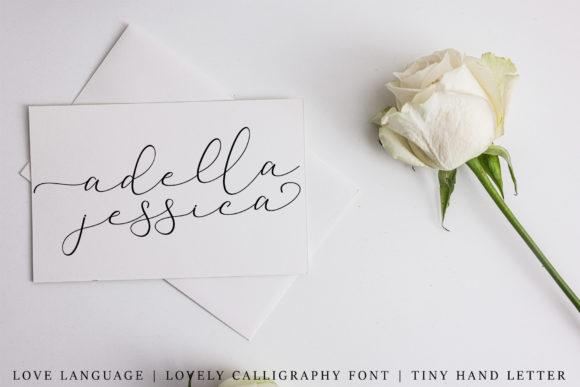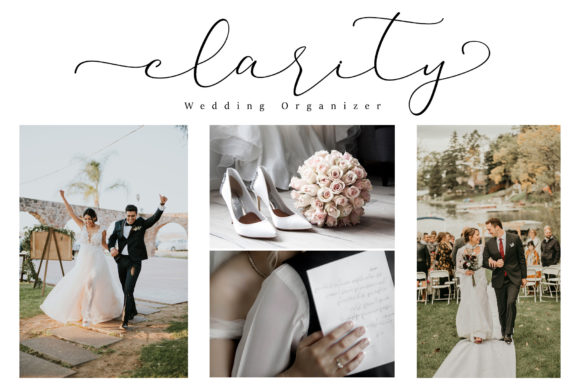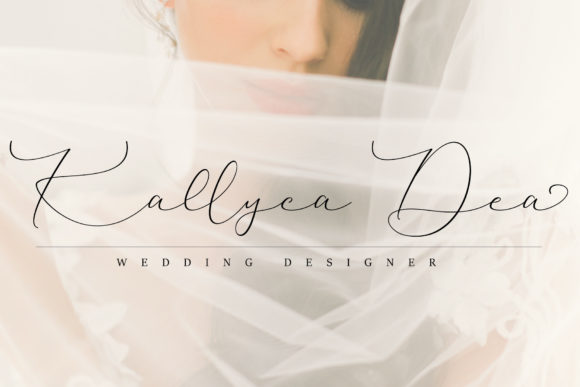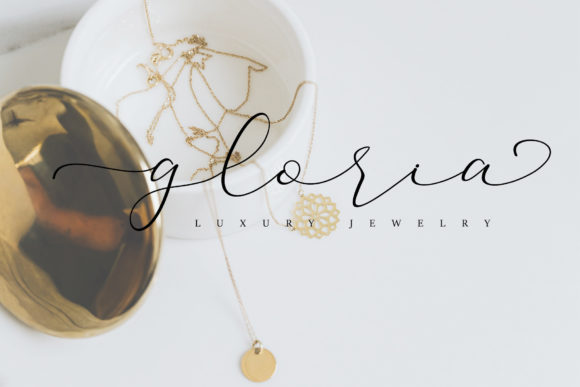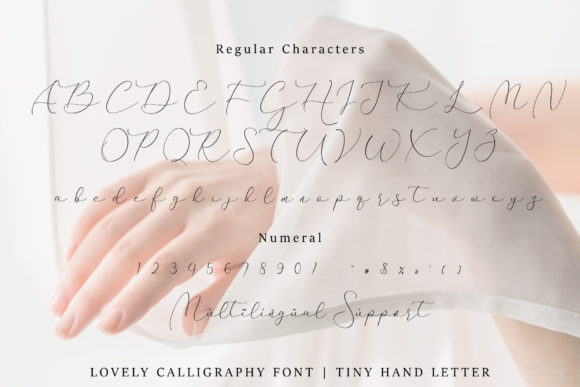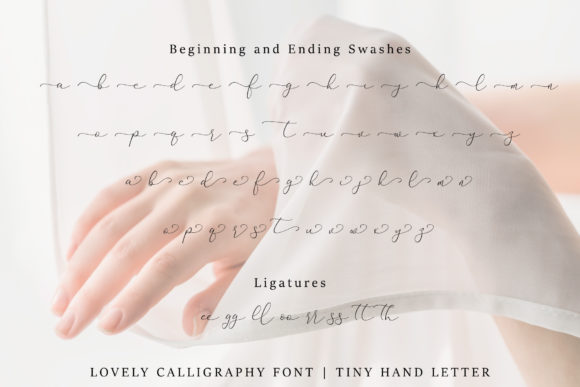
Love Language Font
About Love Language Font
Love Language is a lovely calligraphy font, featuring beautiful swashes and ligatures. This font is PUA encoded which means you can access all of the glyphs and swashes with ease!